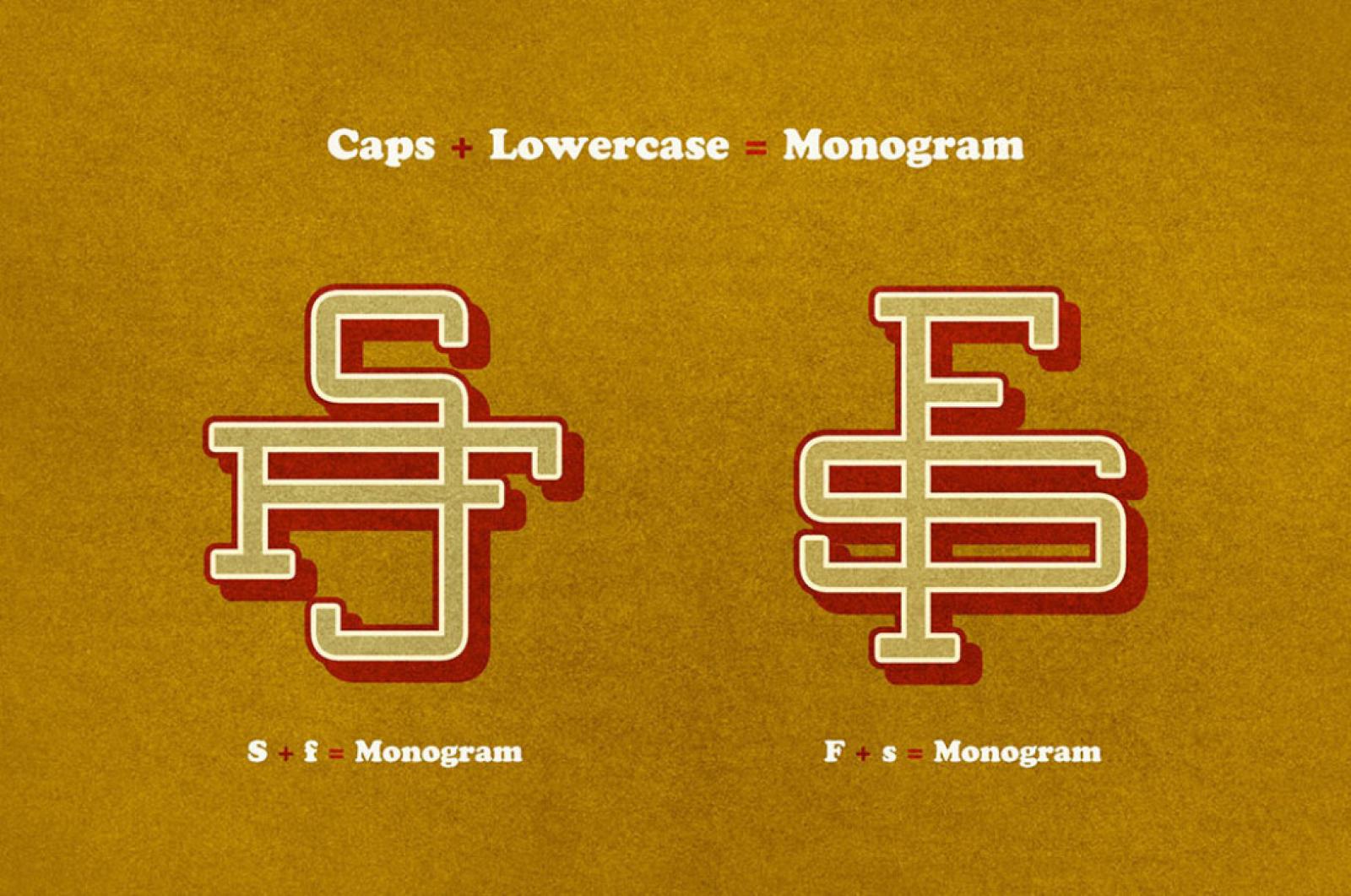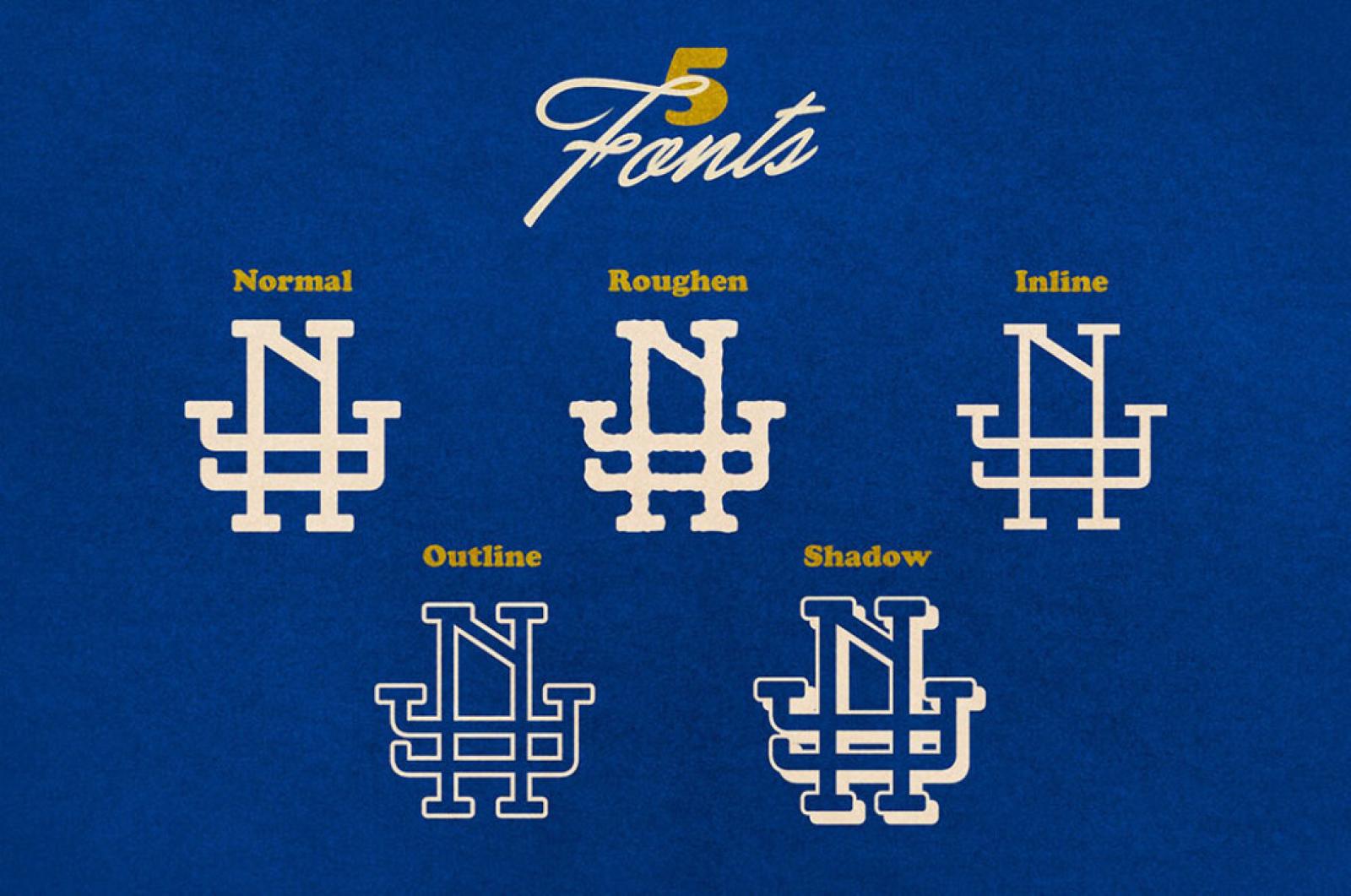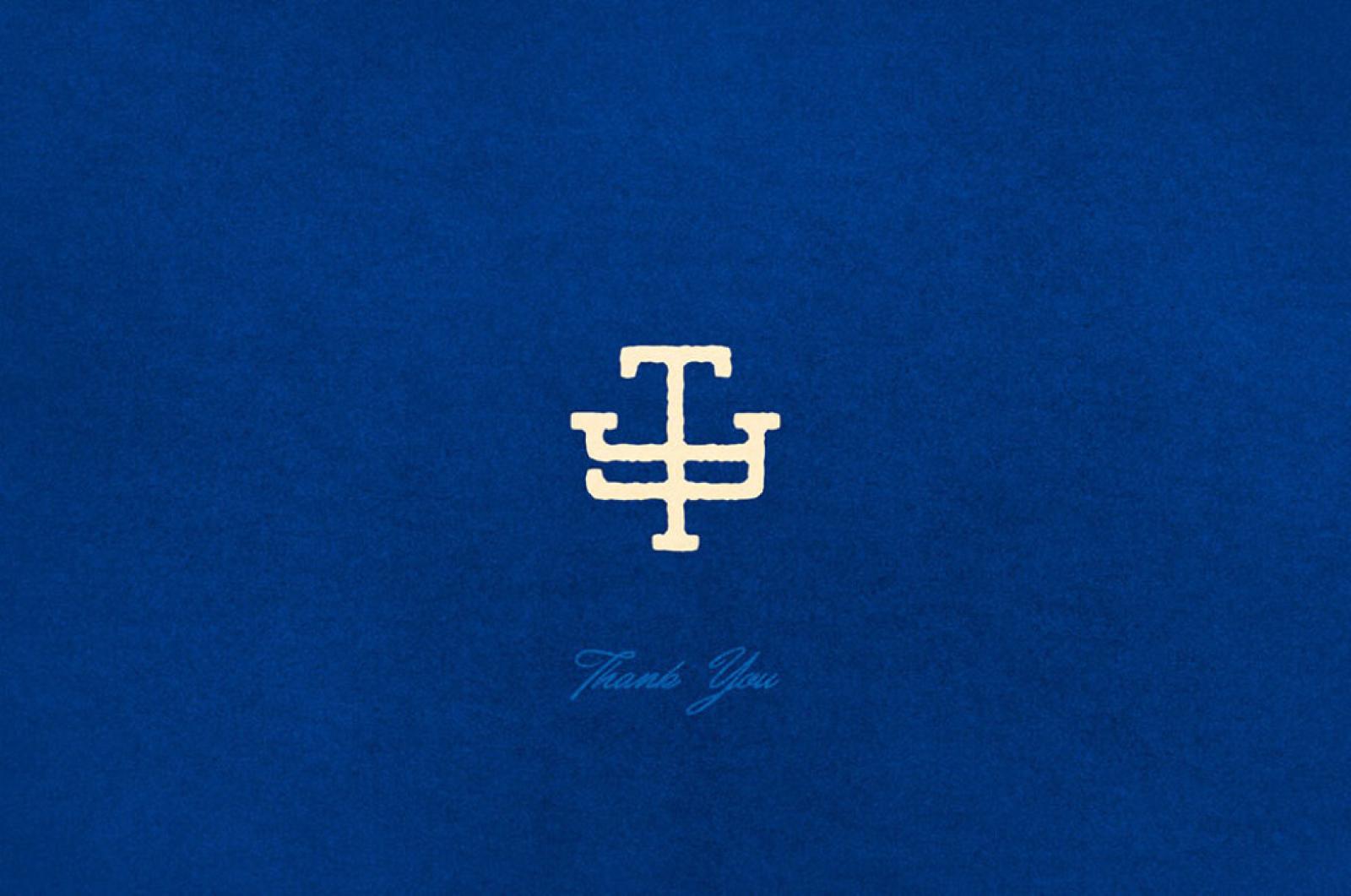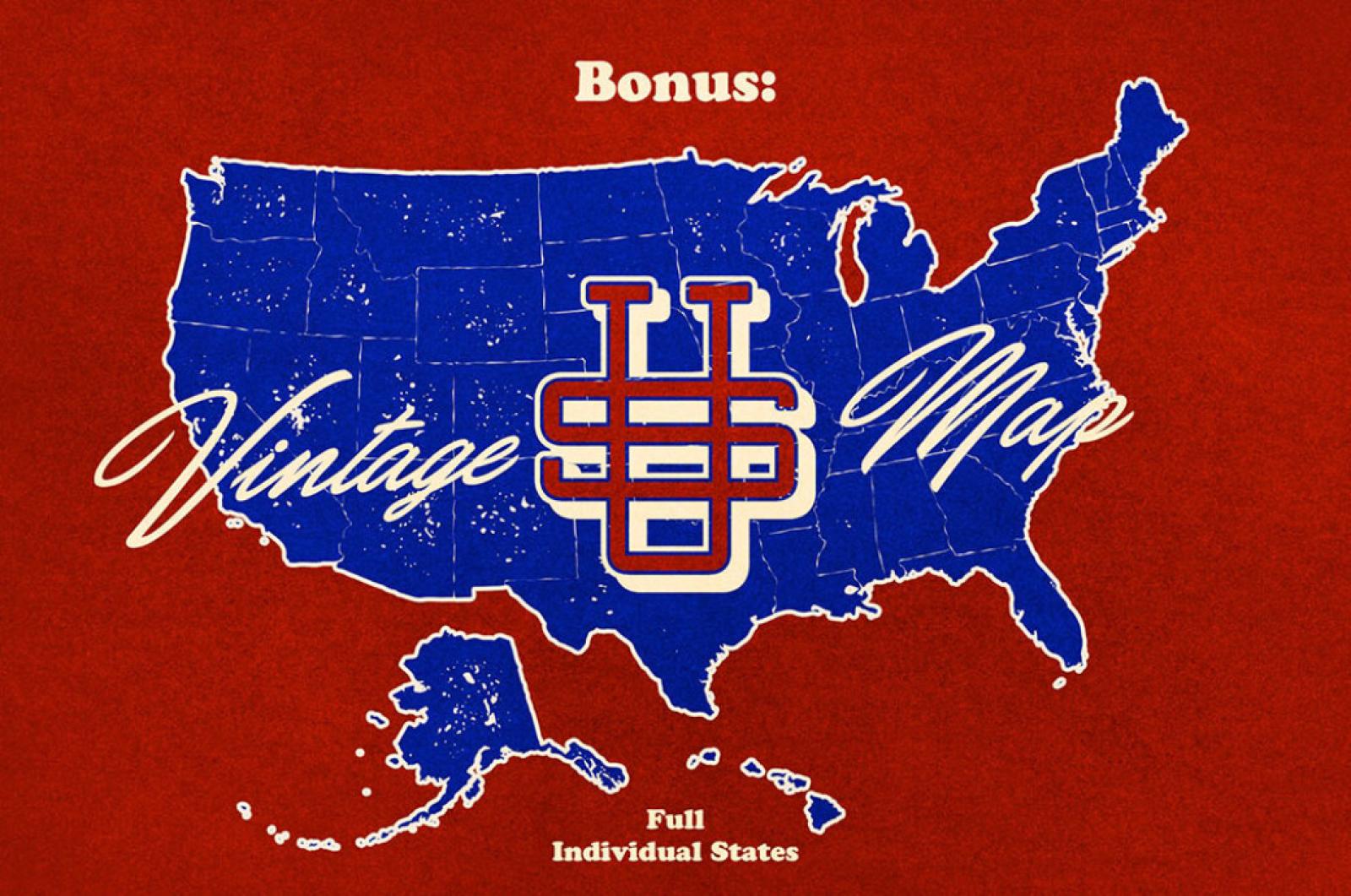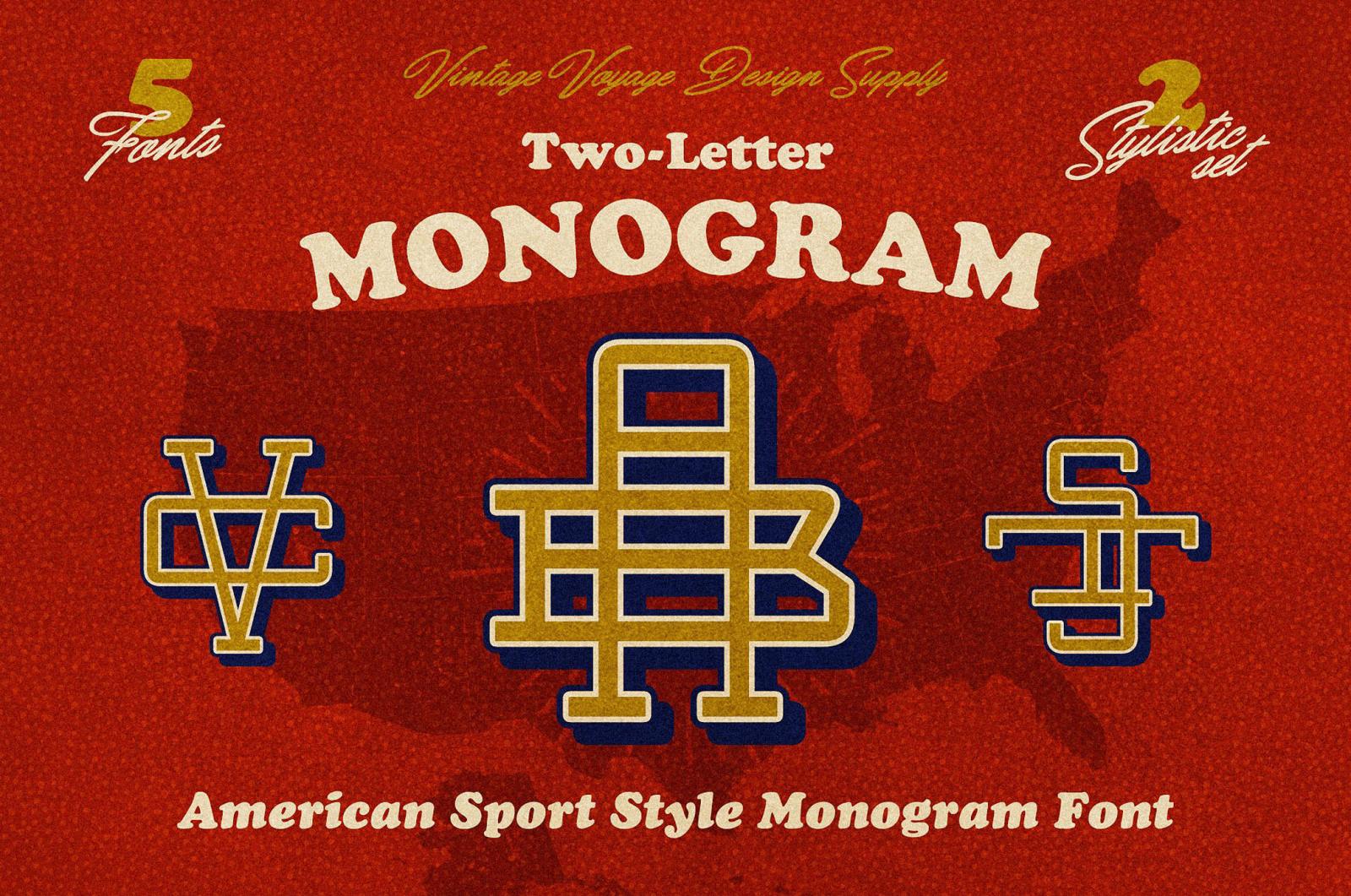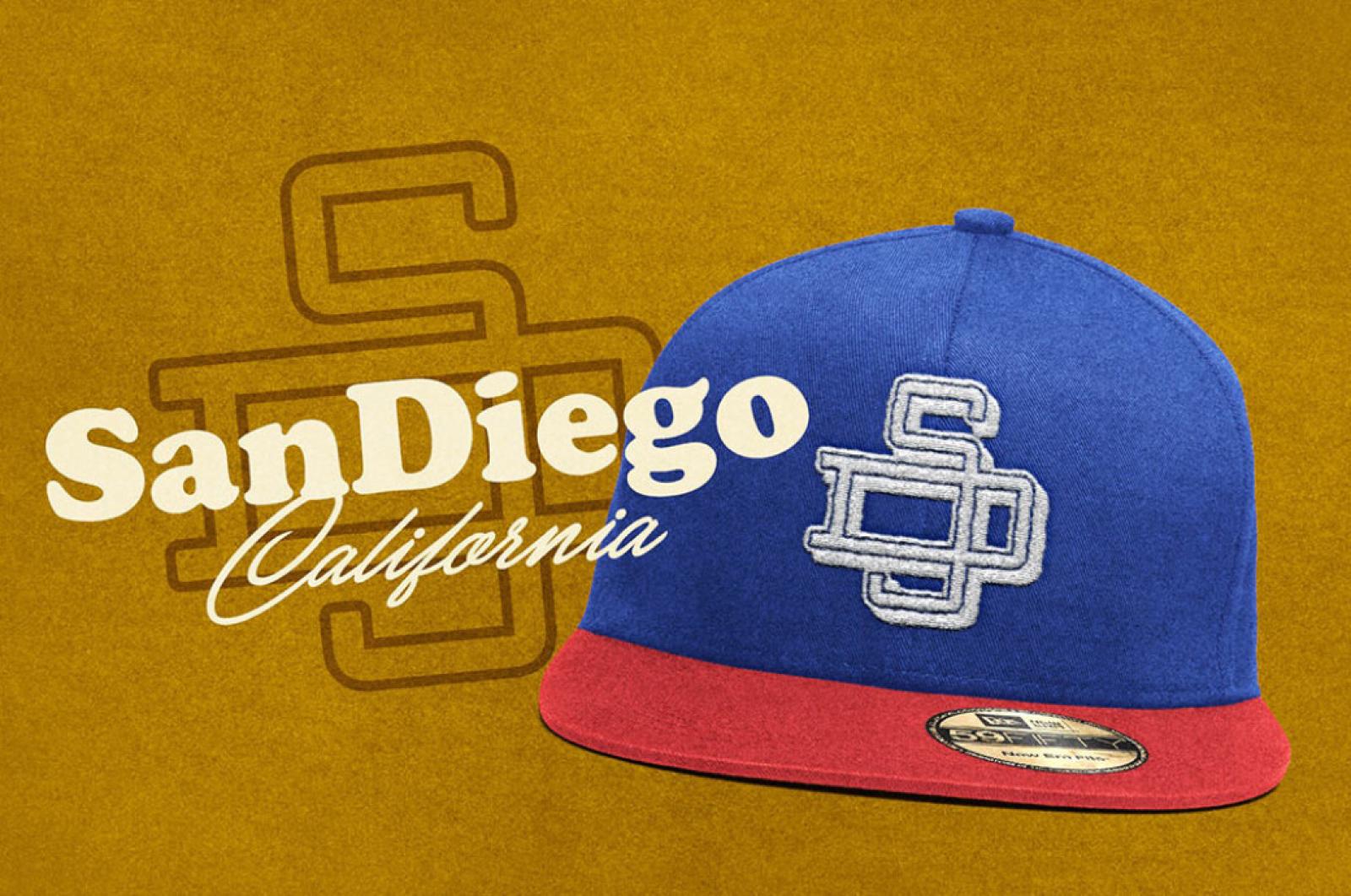
Do you remember these old sports teams with their complex monograms and logos? We bet it took their designers so much patience to carry them out. Lucky you with this monogram font!
This monogram creator is your pass to the world of generating cool products in vintage or sport-related style! With a nice bonus file of the U.S. pressed map and separate 51 states, this pack becomes even more precious. The font is easy to work with: install all 5 files, use Caps+lowercase and achieve the best result. Get more inventive and combine styles for the layered monogram! Use it for your logos or any merch products as you need t-shirts, mugs, watches, flags, or pillows.